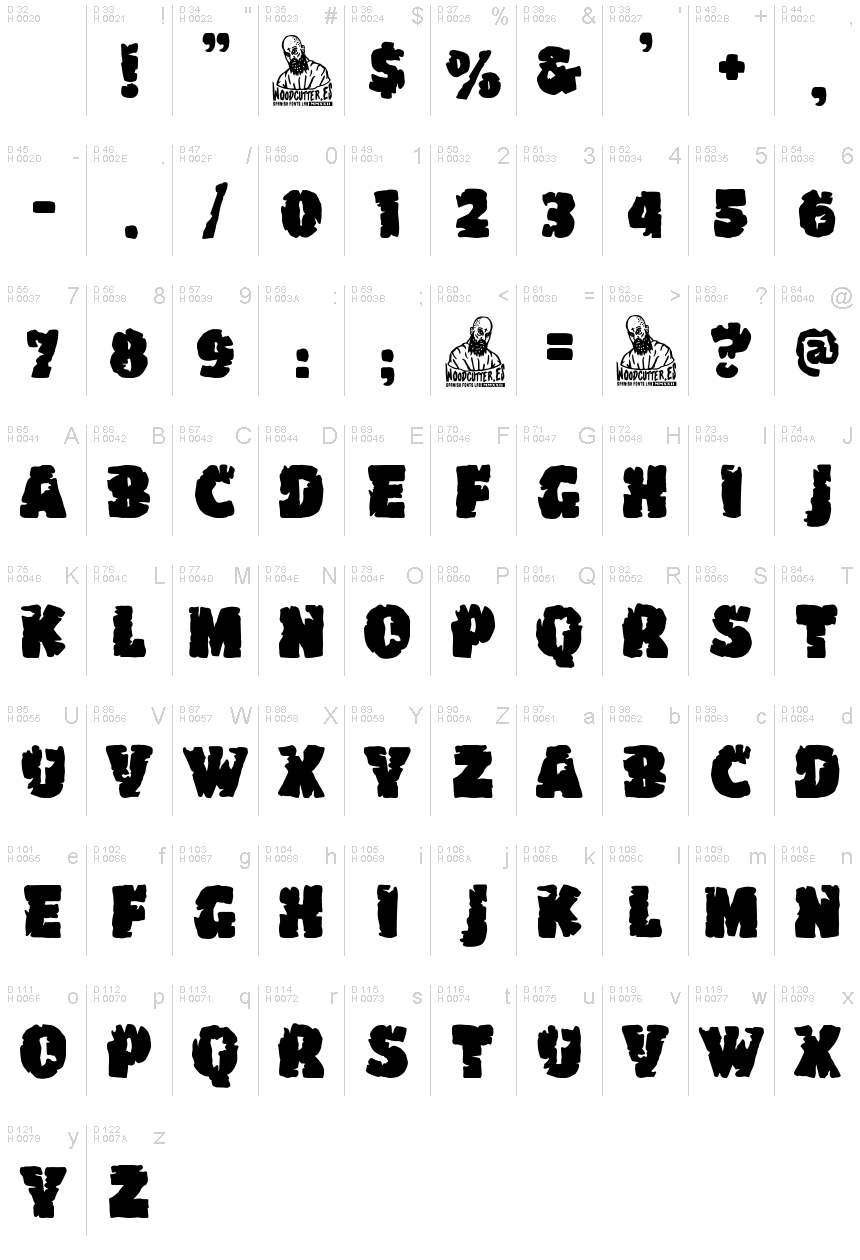
The Car Crash Night
The Car Crash Night emerges from the creative mind of Woodcutter as a bold display font with a distinctively distorted style. Its robust letterforms convey a sense of controlled chaos, reminiscent of the energy and unpredictability found in urban street art. Each character revels in its own uniqueness, capturing the eye with an aesthetic that is as impactful as it is unconventional.
This font lends itself to designs that call for a strong visual punch. Ideal for posters, album art, and any project that demands an edgy or alternative vibe, The Car Crash Night stands out in applications where making a memorable impression is key. Its assertive presence ensures that any message it carries will not only be seen but felt with intensity.
The Car Crash Night.